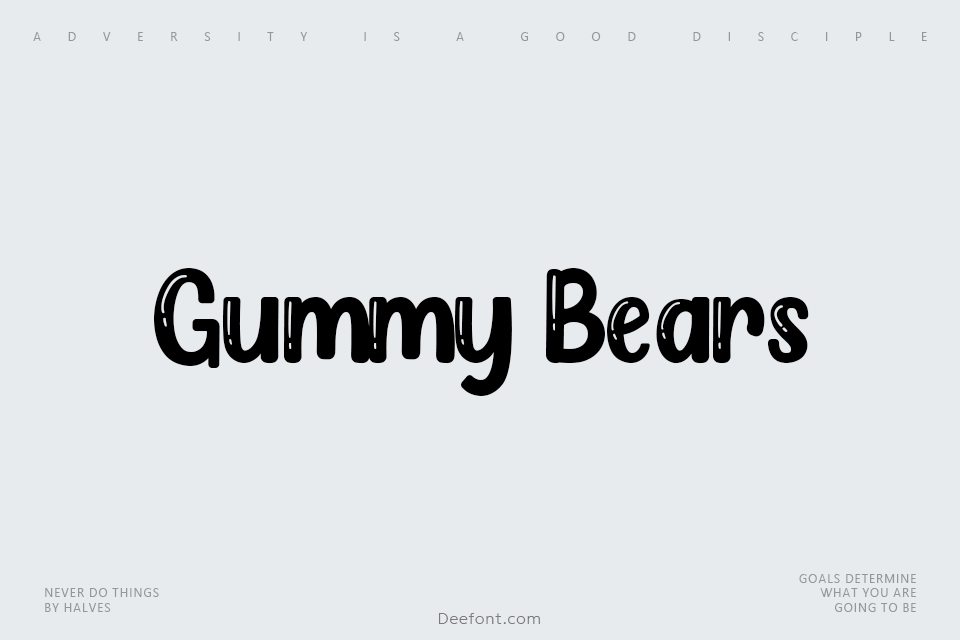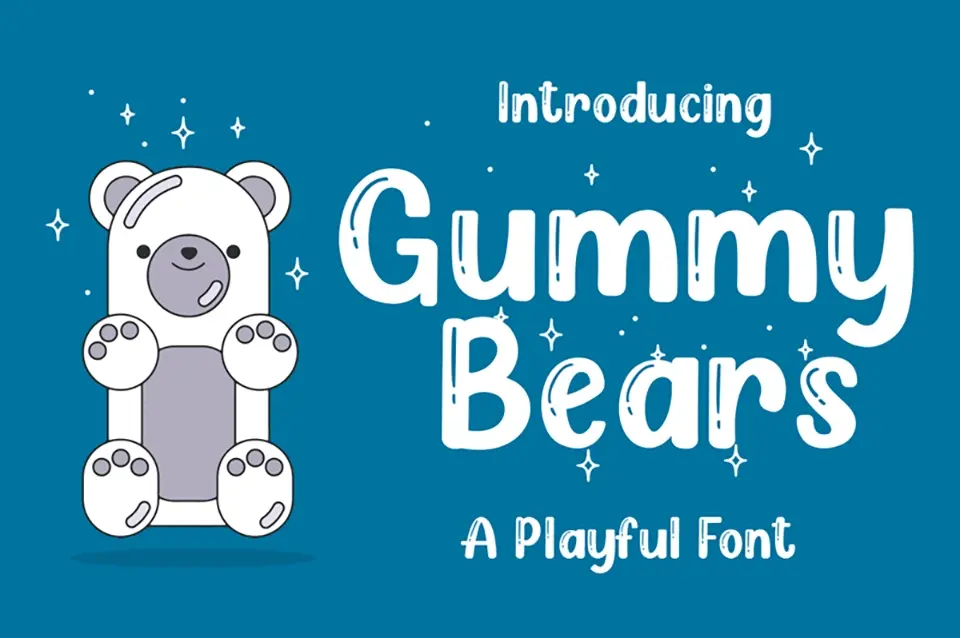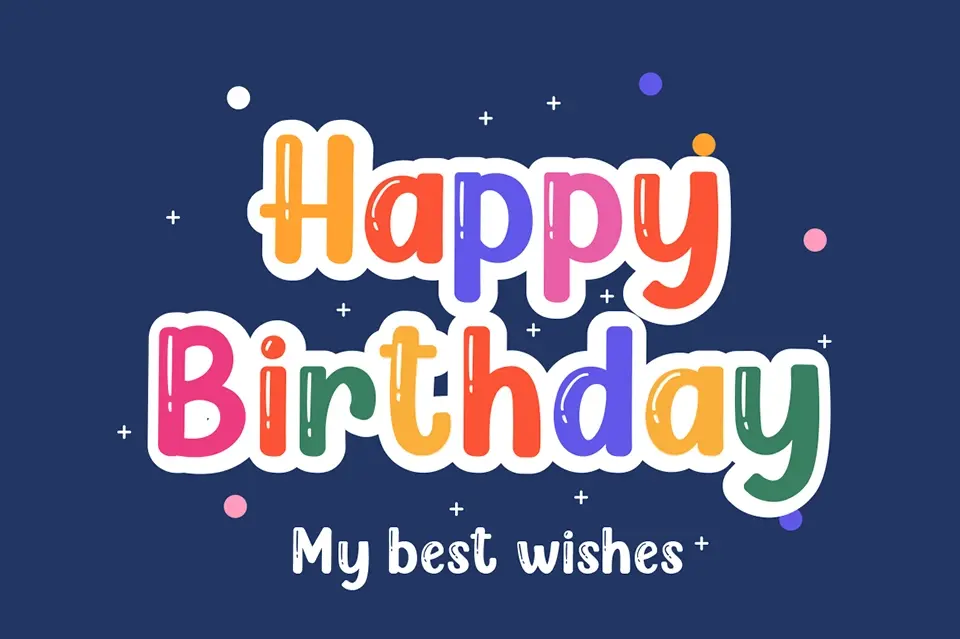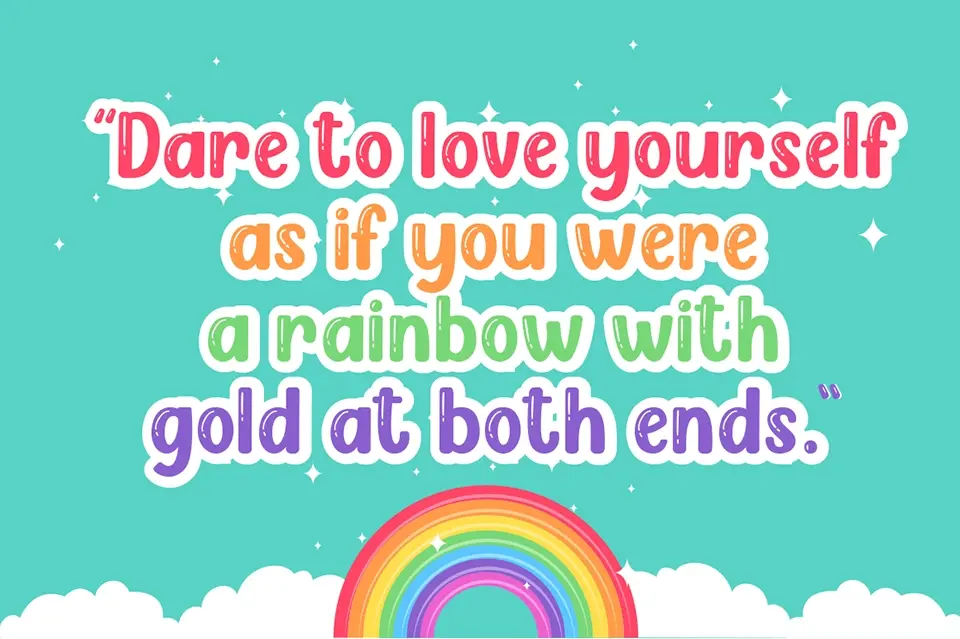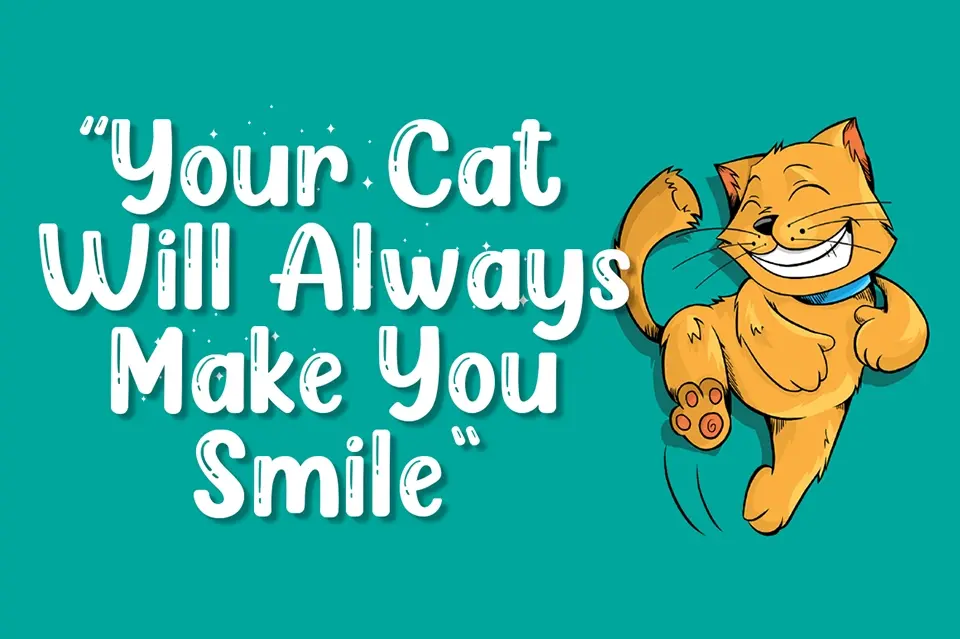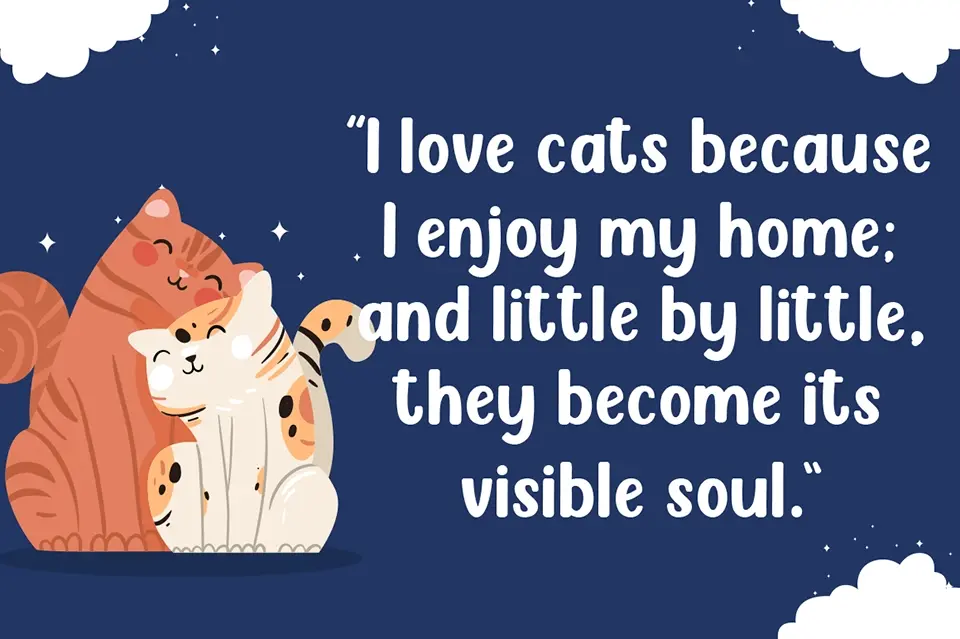
Gummy Bears Font
Gummy Bears is a playful and vibrant display font that captures the essence of fun and creativity. Designed by Manjali Studio, this fancy cartoon typeface features rounded, friendly letterforms perfect for eye-catching designs. The font’s distinctive bubbly aesthetic makes it ideal for posters, book covers, children’s projects, logos, and branding initiatives. With its whimsical character and cheerful personality, Gummy Bears transforms any creative project into something memorable and engaging.